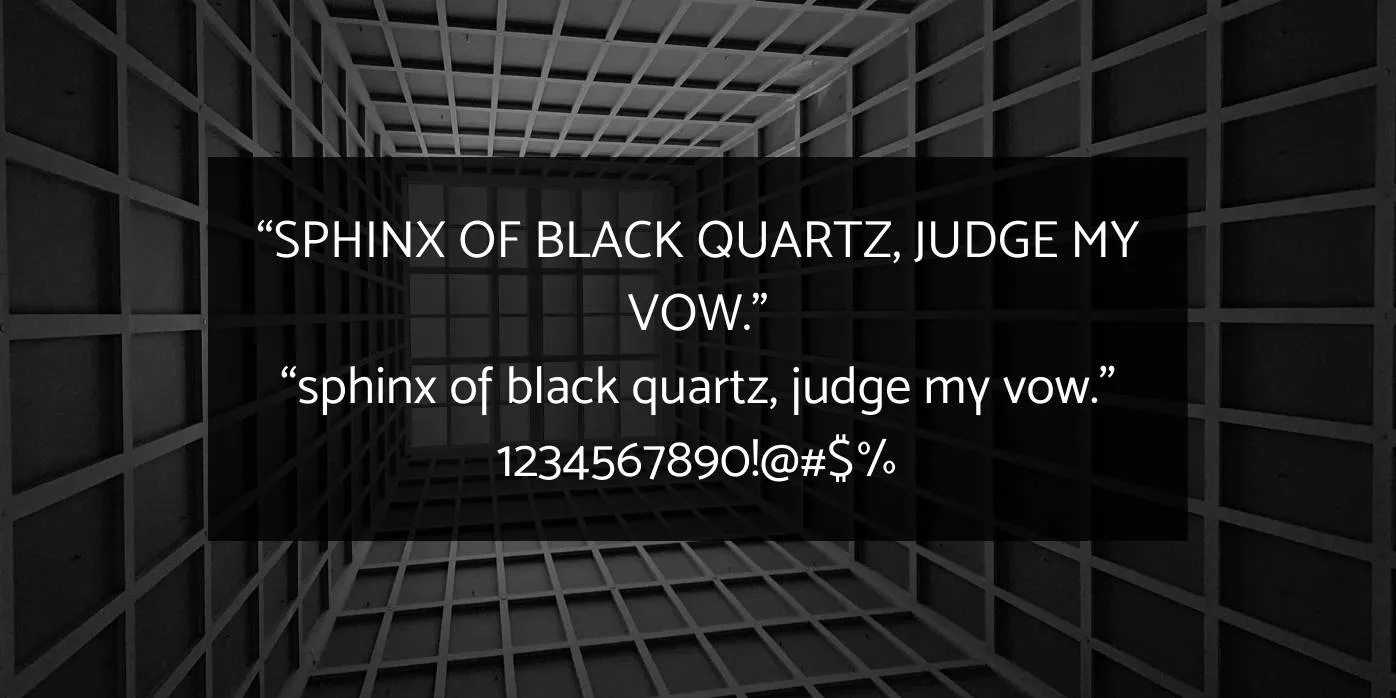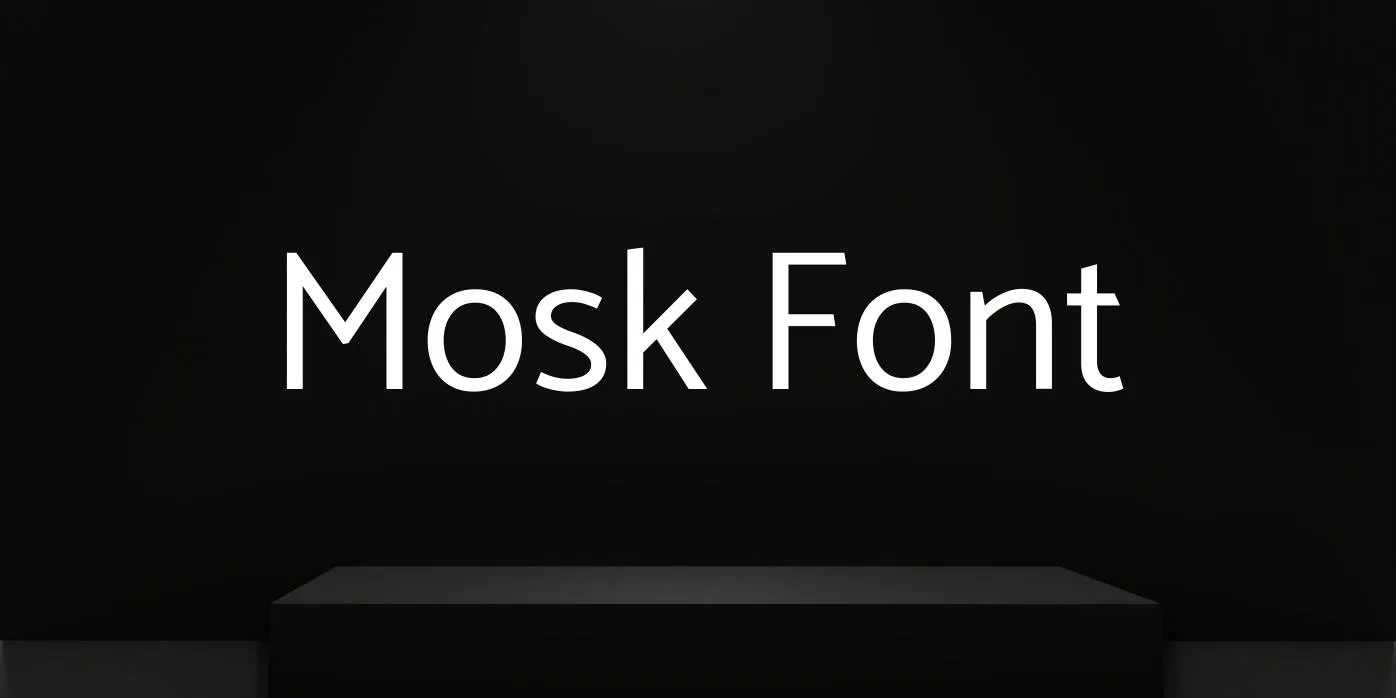
Mosk Font
In this post, we introduce a stylish typeface named Mosk Font. This stunning typeface belongs to the sans serif family. This family was developed by Iulian Maftei. It is a sans serif typeface with a geometric structure.
The shapes of the letters are based on simple geometric forms such as circles, squares, and triangles. This gives the typeface a clean and modern look. The letterforms are designed to be highly readable. They have an open counter form which makes them easy to read even in small sizes.
The typeface also has a high x-height which improves legibility. You can also search it on google. You can use uni neue font which has the same style and characters like this one. Mosk font is available in four weights: light, regular, bold, and black.
Each weight comes with matching italics. The typeface supports Latin, Cyrillic, and Greek character sets. It also includes various symbols and punctuation marks.